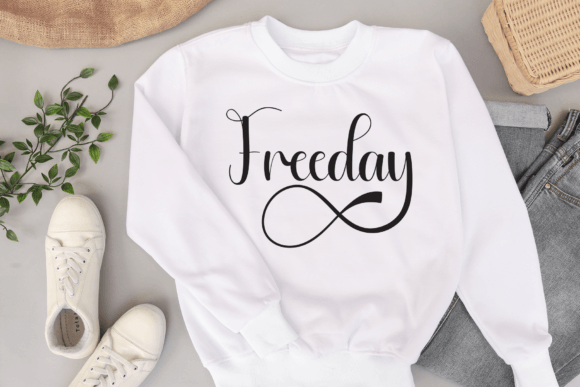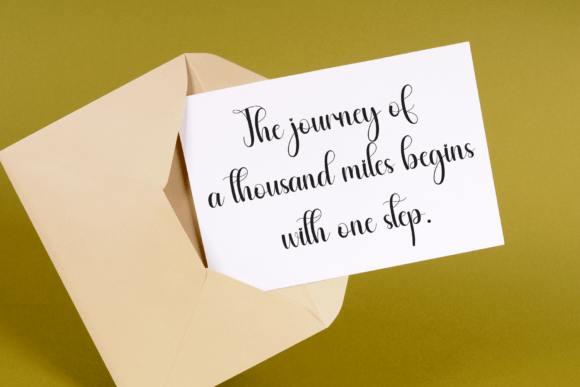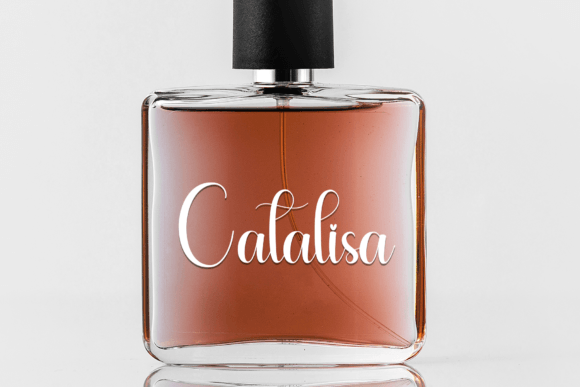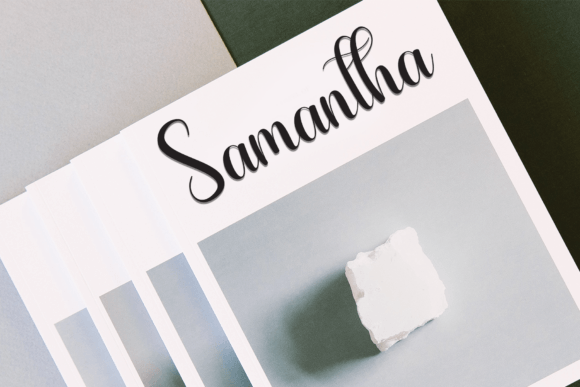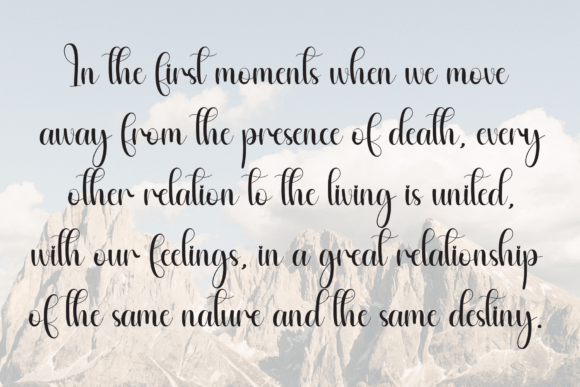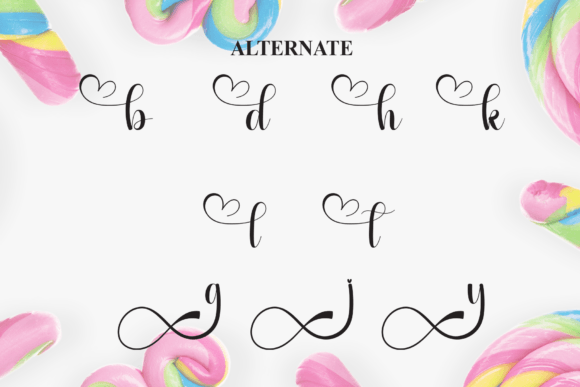
The Sweetest Font You’ll Ever Use: A Comprehensive Guide to Candy Font
Have you ever been working on a design project, and suddenly, you’re stuck on finding the perfect font? I recall a particularly frustrating moment when I was designing a wedding invitation for a client. I wanted a font that exuded warmth, playfulness, and romance. That’s when I stumbled upon Candy Font, a charming handwriting-style display font that instantly captured the essence of what I was looking for.
What Makes Candy Font So Special?
Candy Font is more than just a font; it’s an experience. It’s a way to add a dash of fun and personality to your designs. With its quaint yet playful vibe, this font is perfect for crafting heartfelt wedding invitations, designing creative cards, or adding a touch of whimsy to any artistic endeavor.
So, what do I love about Candy Font? Here are a few things that make it stand out:
- ✨ Unique and playful aesthetic: Candy Font has a distinct handwriting-style charm that sets it apart from other fonts.
- ✅ Easy to read: Despite its playful nature, Candy Font is surprisingly easy to read, even in smaller sizes.
- 💕 Emotional connection: This font has a way of evoking emotions and creating a connection with your audience.
Of course, no font is perfect, and Candy Font has a few quirks:
- 🤔 Limited use in formal contexts: While Candy Font is amazing for creative projects, it might not be the best choice for formal or professional designs.
- ⚠️ Some characters may require manual kerning: As with any font, you might need to adjust the kerning for certain characters to get the perfect look.
Candy Font was designed with the intention of creating a font that would bring joy and whimsy to designs. The designer, inspired by childhood memories of candy and sweets, aimed to craft a font that would evoke feelings of happiness and playfulness.
| Q: What type of projects is Candy Font best suited for? | A: Candy Font is perfect for creative projects, such as wedding invitations, cards, and artistic endeavors that require a playful touch. |